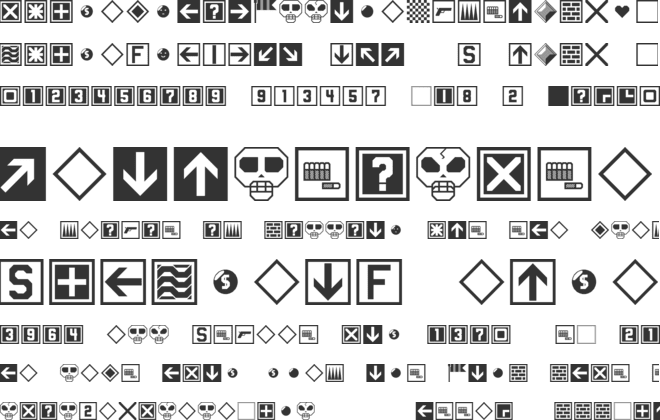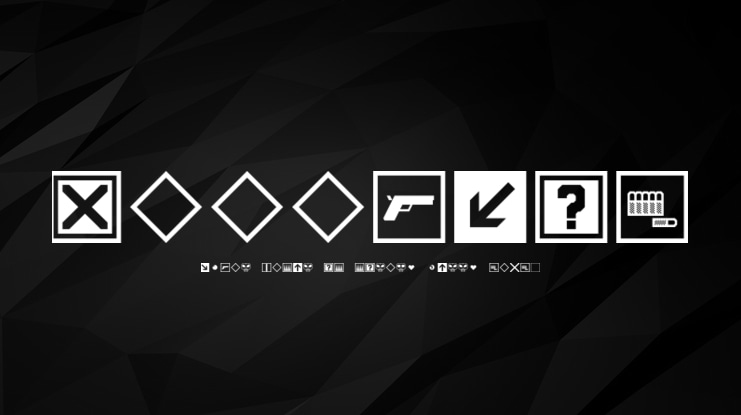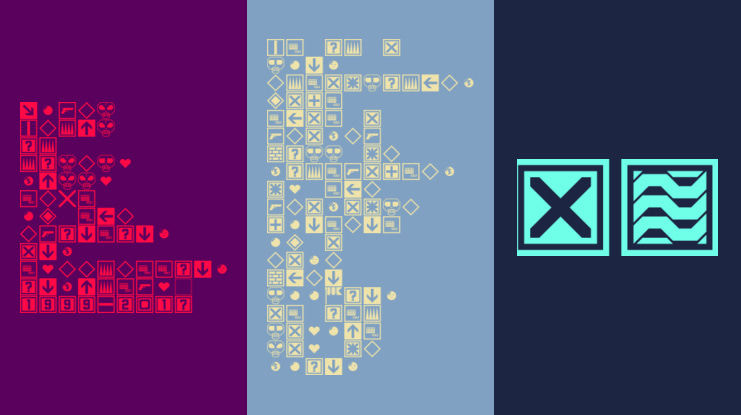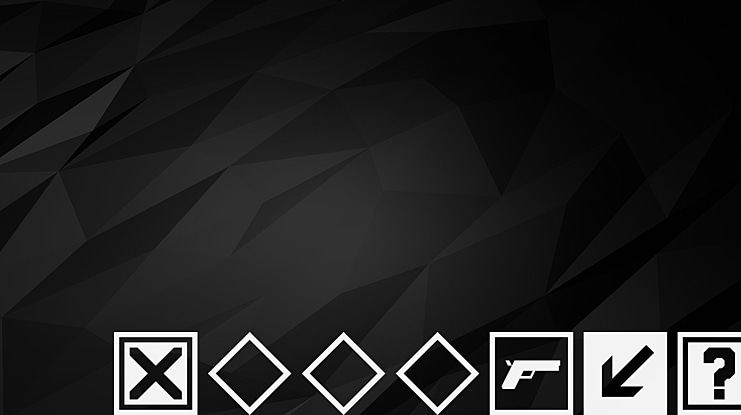
MapperKit Font
If you're a game developer who's looking for a font that could be used to design tile-based maps in a text editor, look no further! Unzip, install and get to work!